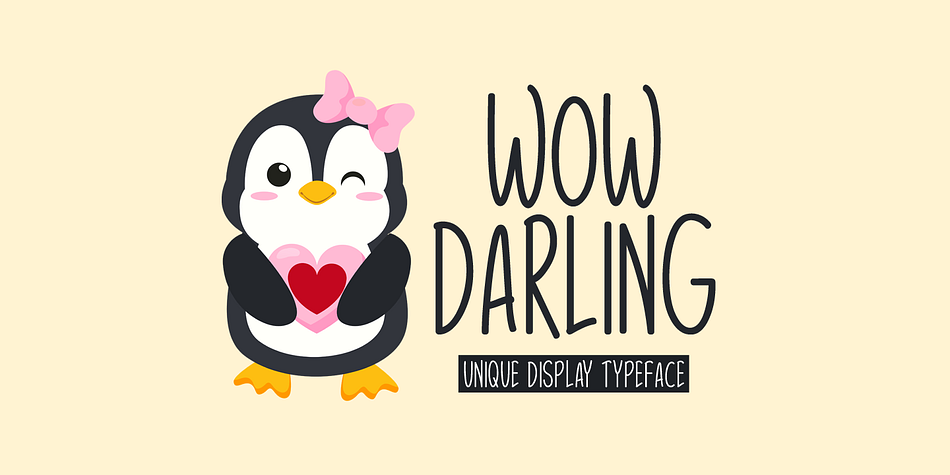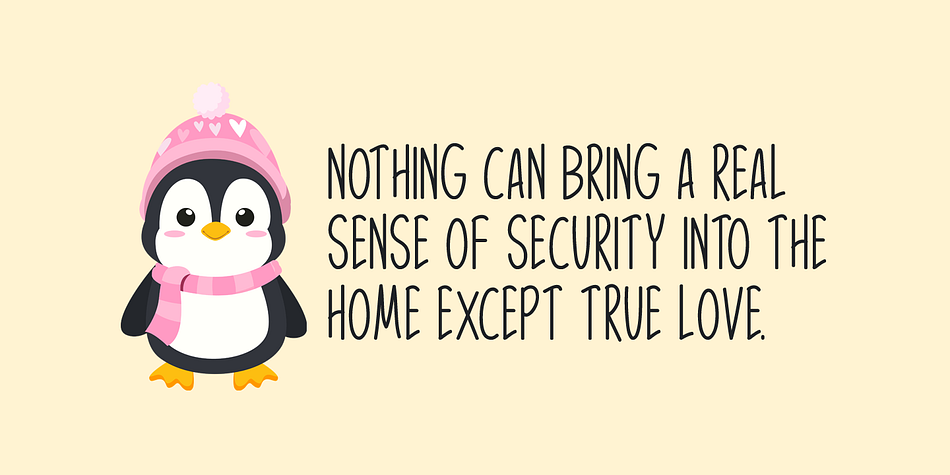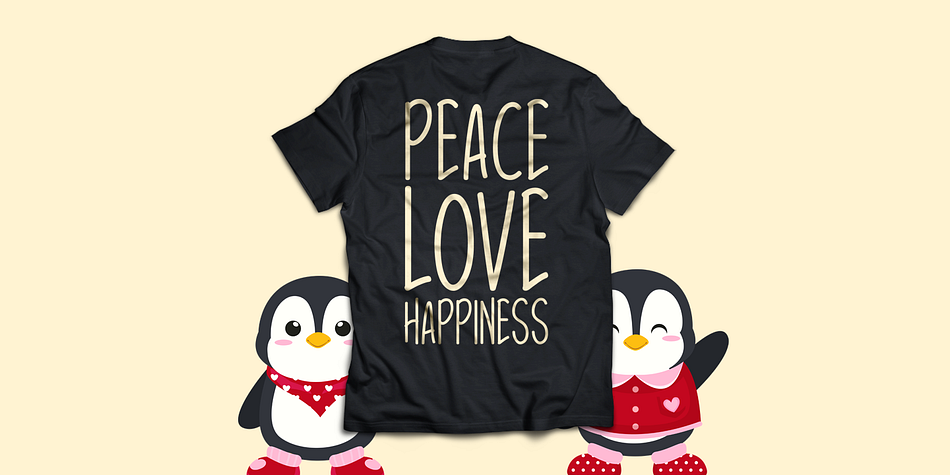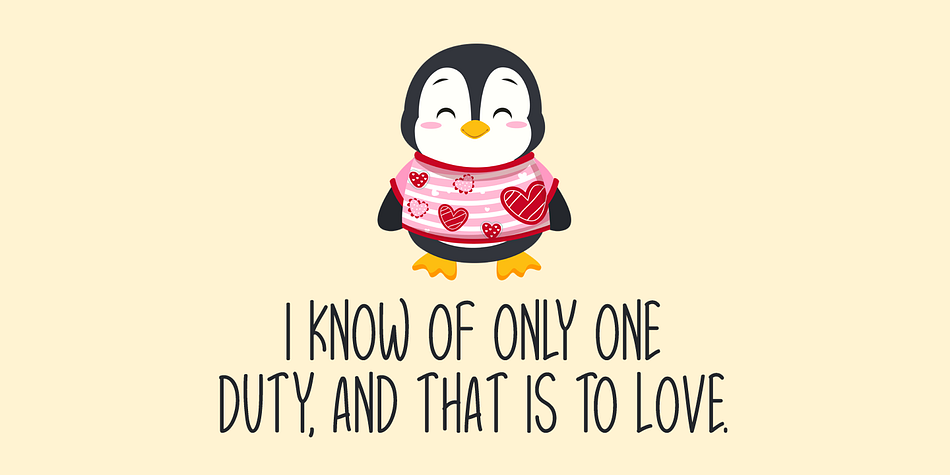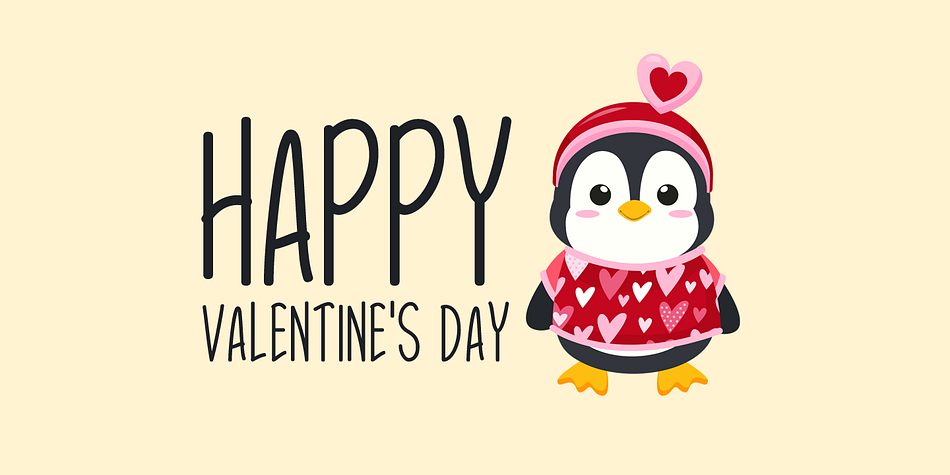
Designed by Md. Shohail Bhuiyan, Wow Darling is a hand drawn font published by Seemly Fonts.
Valentine Dream is a sweet handwritten display font. It will add a unique touch to any crafting project!